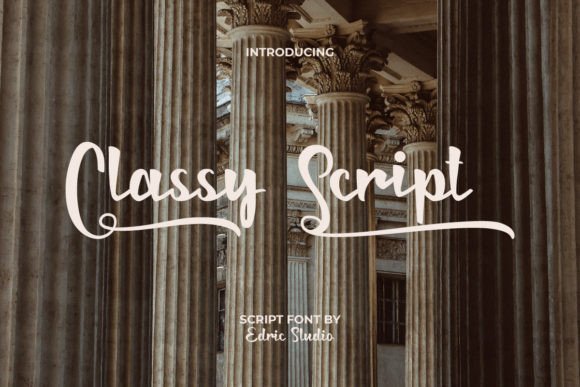
The Elegance of Handwritten Fonts: A Designer’s Dream
As I sat at my desk, staring at a blank canvas, I knew exactly what I needed to bring my design to life – a touch of elegance and sophistication. And that’s when I turned to the Classy Script Font, a delicate and flowing handwritten font that adds a level of refinement to any design. Its beautiful and well-balanced characters make it a versatile choice for a wide range of projects, from wedding invitations to branding materials.
The Classy Script Font is more than just a pretty face – it’s a valuable tool for designers looking to add a touch of whimsy and personality to their work. With its PUA encoding, accessing all the glyphs and ligatures is a breeze, giving designers the freedom to get creative and experiment with different styles.
Key Features of Classy Script Font
- Font Style: Elegant script font with a classic touch, suitable for formal and professional designs.
- Unique Characteristics: Features a flowing, connected script design with subtle flair and elegance, making it perfect for wedding invitations, business cards, and other formal documents.
Designer Review: Classy Script Font
Overall, I have mixed feelings about the Classy Script Font. It’s a beautifully designed font, perfect for creating elegant and sophisticated designs ✨. The flowing lines and cursive style give it a high-end feel, making it ideal for weddings, luxury brands, and other premium products.
- It’s perfect for creating eye-catching headings and titles ✨
- The font is highly customizable, allowing you to adjust the size, color, and spacing to fit your design needs ✨
- It’s highly legible, making it easy to read even in small sizes ✨
- The font can be difficult to read in certain contexts, such as in paragraphs of large blocks of text ⚠️
- The font may not be suitable for designs that require a more modern or edgy feel ⚠️
- The font is not as versatile as some other script fonts, and may not work well in a variety of design contexts ⚠️
Overall, I would give the Classy Script Font 3.5 out of 5 stars. It’s a beautiful font that works well in certain contexts, but may not be the best choice for every design project.
Tips for Getting the Most Out of the Classy Script Font
Use the Classy Script Font for titles, headings, and other text elements where a touch of elegance is needed. Experiment with different font sizes and combinations to achieve the desired effect.
The Classy Script Font is ideal for:
– Luxury brand logos and marketing materials
– High-end product packaging and labels
– Fashion and beauty brand branding and advertising